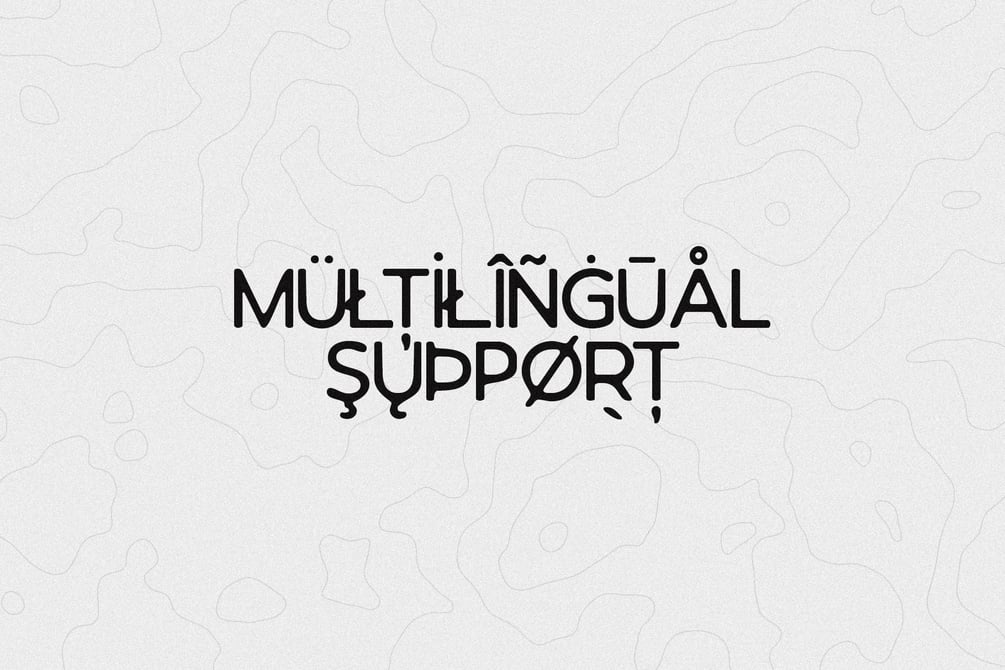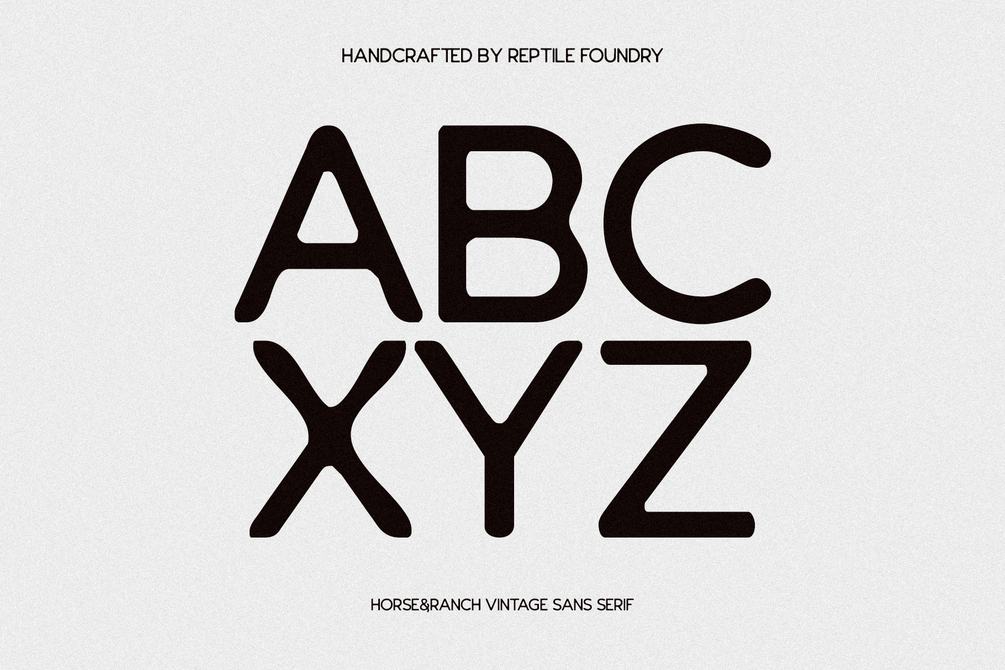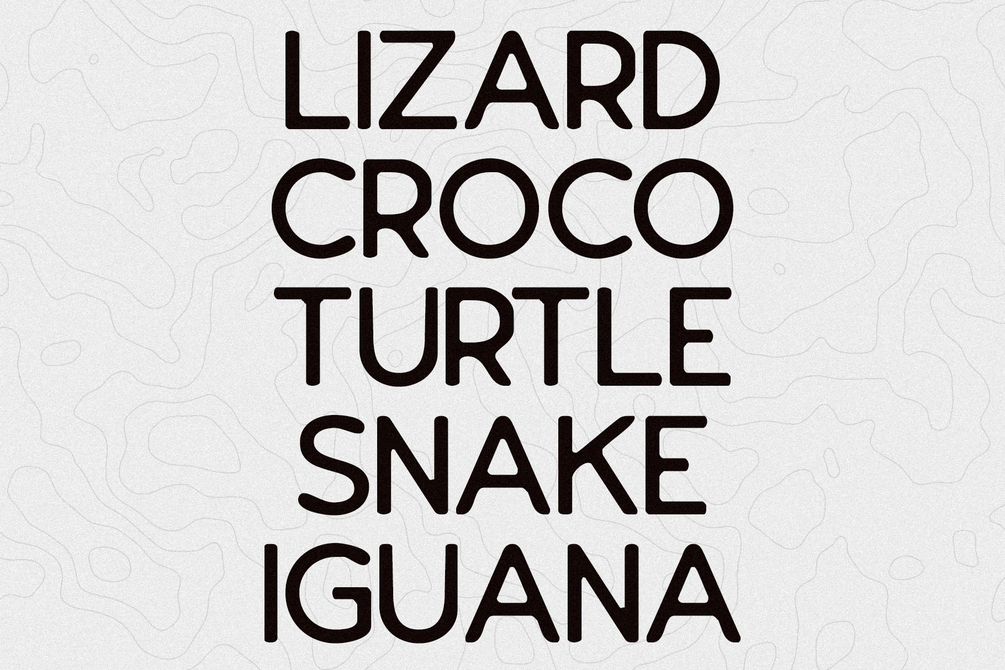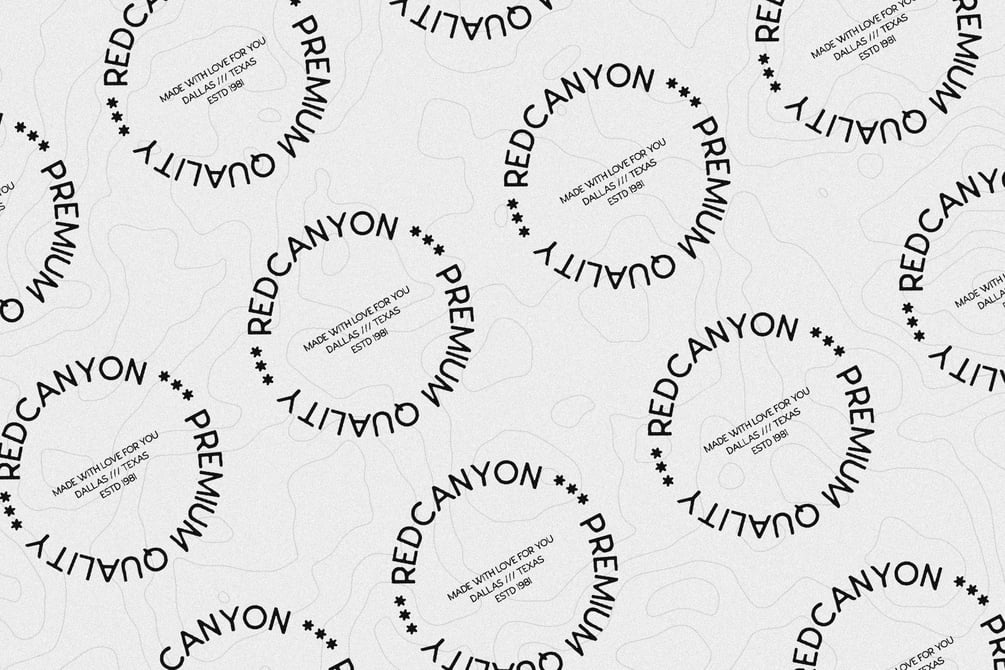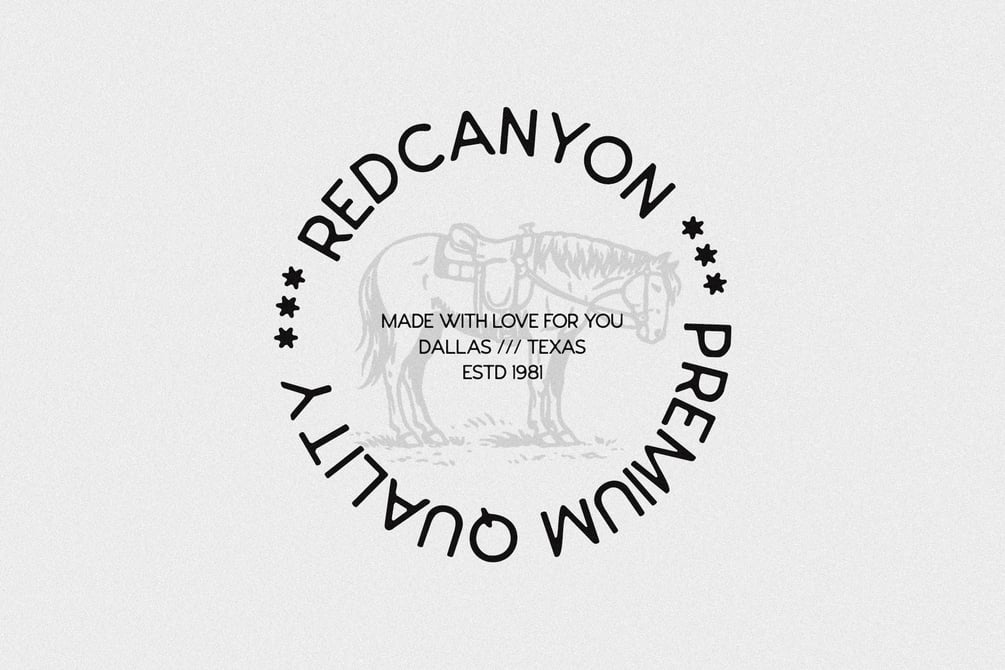
HORSE & RANCH FREE FONT
Reptile Foundry
HORSE & RANCH is a bold vintage all-caps typeface inspired by classic Western signage, ranch brands, and old saddle-shop lettering. Built with strong, confident letterforms and subtle rugged details, it captures the spirit of wide-open landscapes, hardworking craftsmanship, and timeless Americana. Perfect for logos, apparel, signage, packaging, and heritage-style branding, this font delivers an authentic ranch-born character with a strong, masculine presence and unmistakable rustic charm.